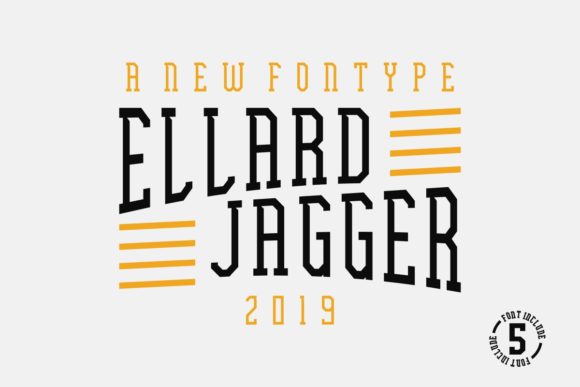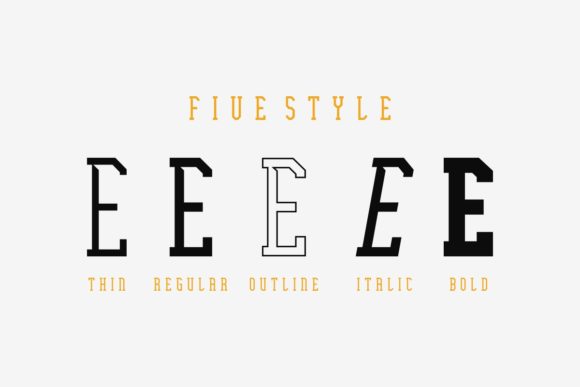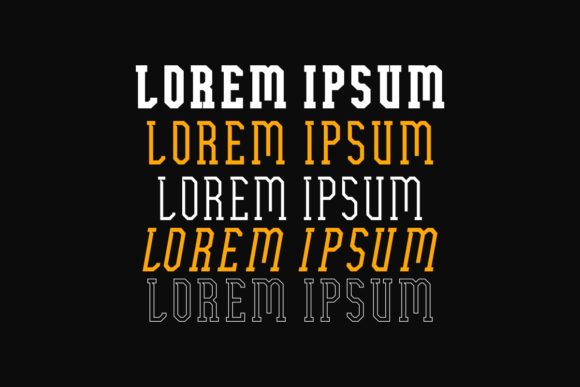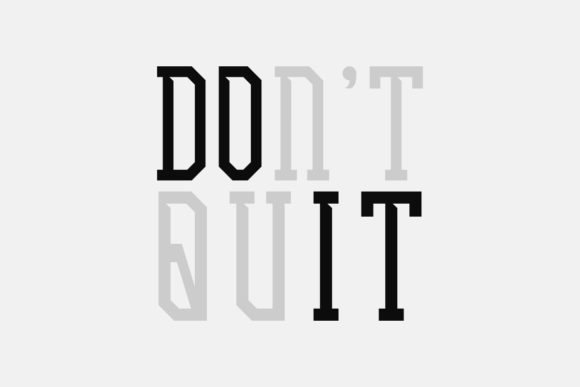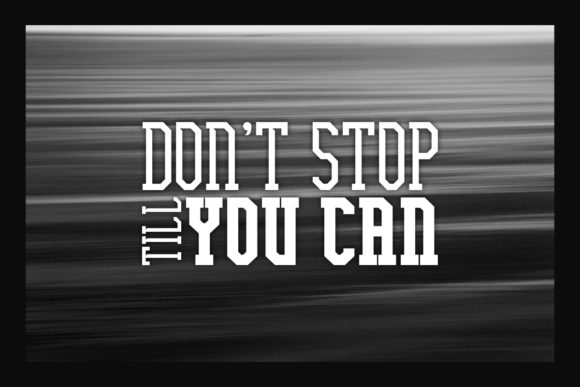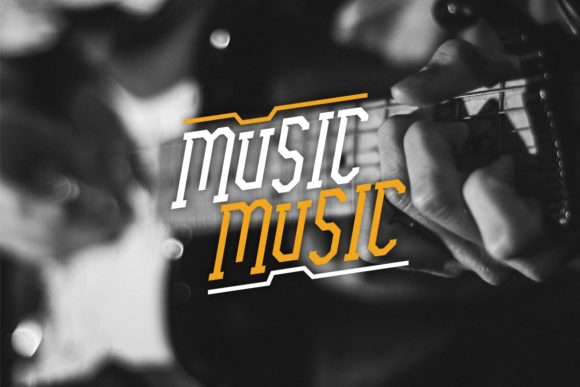
Ellard Jagger Font: Elevate Your Design with a Vintage Twist
Are you on the hunt for a font that adds a touch of sophistication and nostalgia to your design projects? Look no further than the Ellard Jagger font. This stunning serif font boasts a vintage feel that’s sure to captivate your audience and set your designs apart from the rest. In this article, we’ll dive into the world of Ellard Jagger, exploring its unique features, and how it can elevate your design game.
The Charm of Ellard Jagger
Ellard Jagger is a meticulously crafted serif font that exudes a sense of classic elegance. Its vintage charm is reminiscent of traditional printing techniques, evoking a sense of nostalgia and timelessness. The font’s intricate details and refined lines make it perfect for designs that require a touch of sophistication, such as luxury branding, high-end packaging, and elegant editorial content.
Key Features of Ellard Jagger
- Unique Serif Design: Ellard Jagger’s serif design is unlike any other. Its distinctive flair and intricate details make it a standout in the world of typography.
- Vintage Feel: The font’s vintage aesthetic is perfect for designs that require a touch of nostalgia and classic charm.
- Highly Legible: Despite its ornate details, Ellard Jagger remains highly legible, making it suitable for body text and headlines alike.
- Versatile: The font comes in a range of weights, making it versatile enough to be used in a variety of design applications.
How to Use Ellard Jagger in Your Design Projects
Ellard Jagger is an incredibly versatile font that can be used in a wide range of design projects. Here are a few ideas to get you started:
- Luxury Branding: Use Ellard Jagger to create sophisticated logos, business cards, and letterheads that exude high-end quality.
- Editorial Design: Add a touch of elegance to your editorial content with Ellard Jagger. It’s perfect for magazine and newspaper headlines, as well as book titles and subtitles.
- Packaging Design: Elevate your packaging design with Ellard Jagger. Its vintage charm is sure to make your products stand out on store shelves.
- Web Design: Use Ellard Jagger to create stunning website headers, titles, and captions that add a touch of sophistication to your online presence.
Tips for Pairing Ellard Jagger with Other Fonts
While Ellard Jagger is stunning on its own, it can also be paired with other fonts to create a unique and visually appealing design. Here are a few tips for pairing Ellard Jagger with other fonts:
- Pair with Sans-Serifs: Pair Ellard Jagger with a clean sans-serif font to create a striking contrast between serif and sans-serif typography.
- Use with Script Fonts: Combine Ellard Jagger with a script font to add a touch of elegance and sophistication to your design.
- Experiment with Monospace Fonts: Pair Ellard Jagger with a monospace font to create a visually interesting contrast between serif and monospace typography.
In conclusion, Ellard Jagger is a stunning serif font that adds a unique spark to any design project. Its vintage charm, intricate details, and high legibility make it perfect for a wide range of design applications. Whether you’re a designer, crafter, or simply a typography enthusiast, Ellard Jagger is sure to captivate your audience and elevate your design game. So why wait? Download Ellard Jagger today and experience the power of vintage typography for yourself.